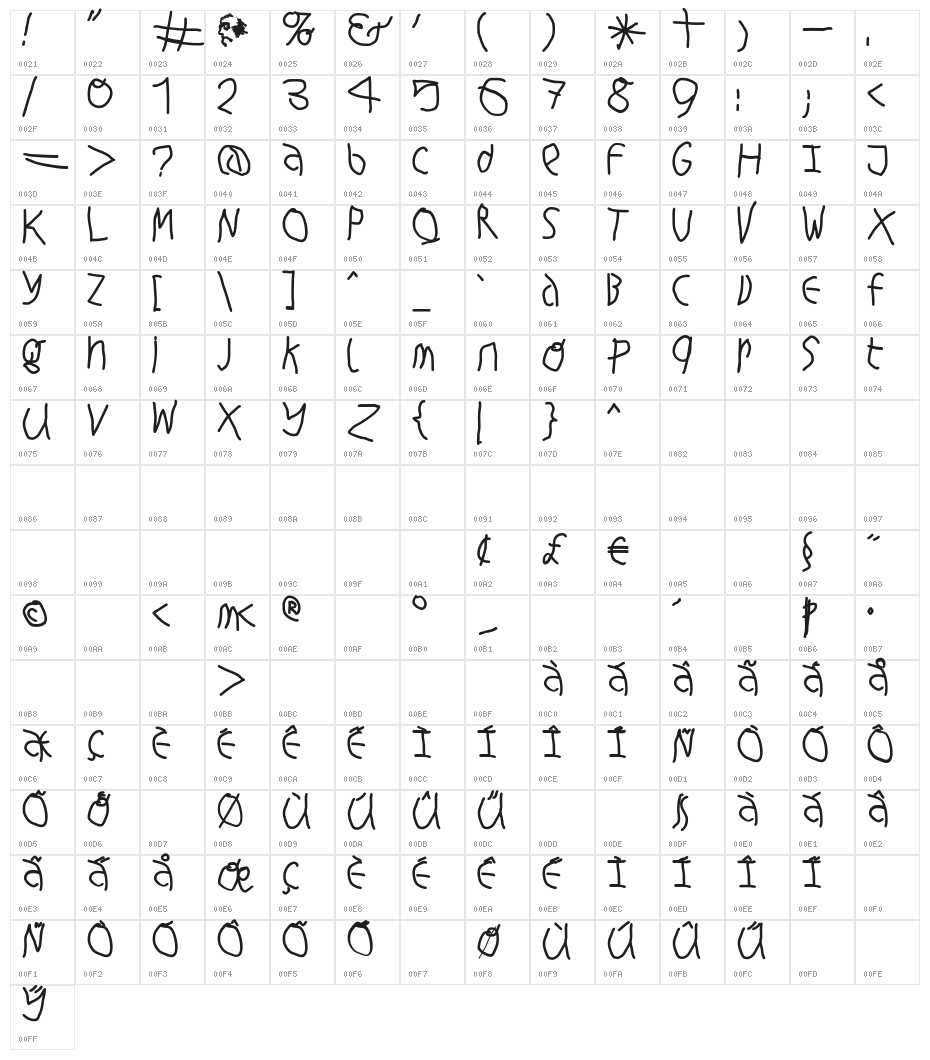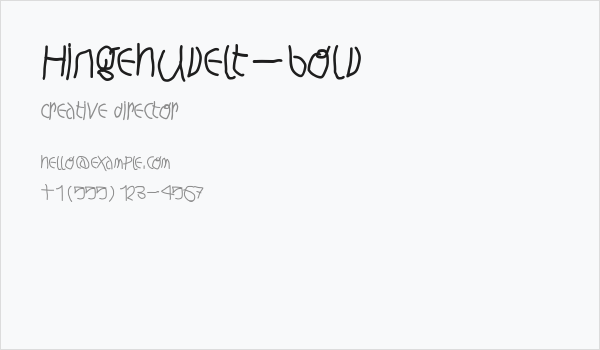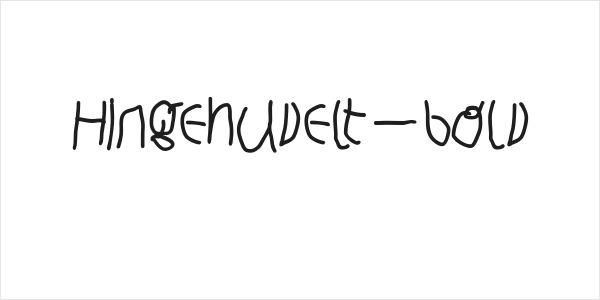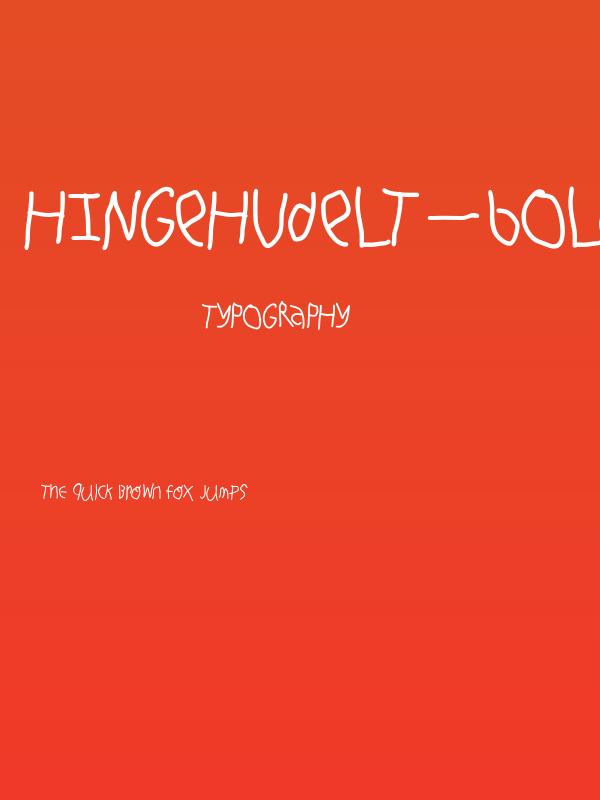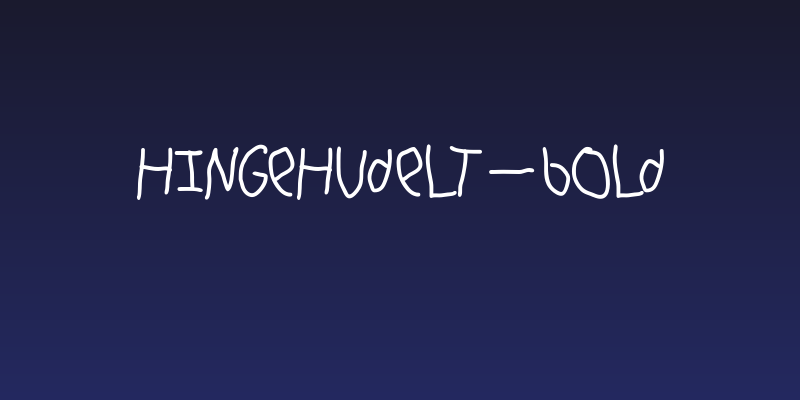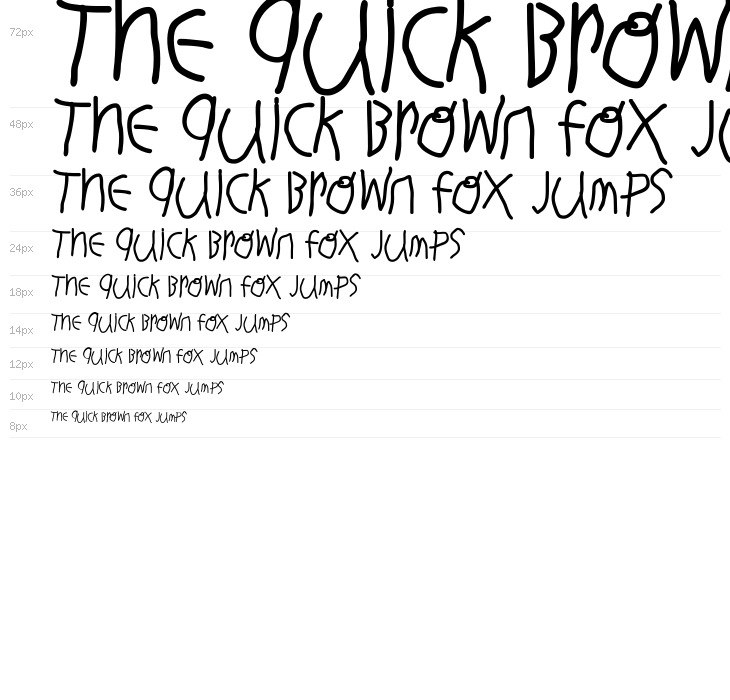
Hingehudelt-Bold Font
Hingehudelt-Bold Description
This font features a playful and irregular handwritten style, characterized by its uneven strokes and casual appearance. The letters vary in size and angle, giving it a dynamic and lively feel. The uppercase and lowercase letters maintain a consistent style, with rounded edges and a slightly tilted orientation. Numbers and special characters follow the same whimsical design, adding to the font's overall charm. This font's unique personality makes it stand out, offering a sense of creativity and spontaneity.
| Proposed Projects | Ideal for creative projects such as children's books, greeting cards, and playful branding materials. |